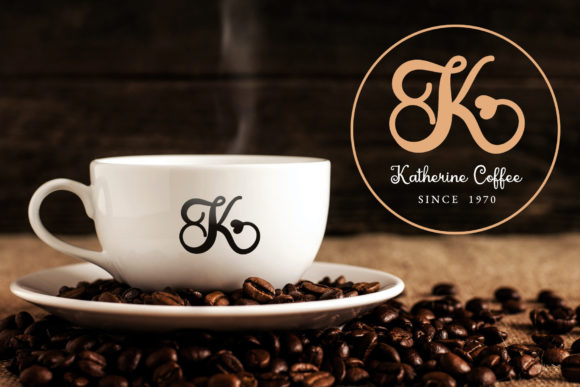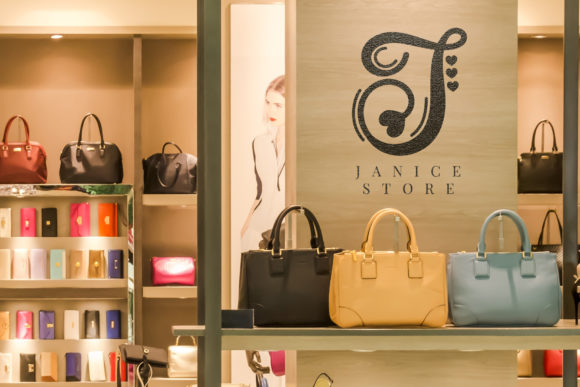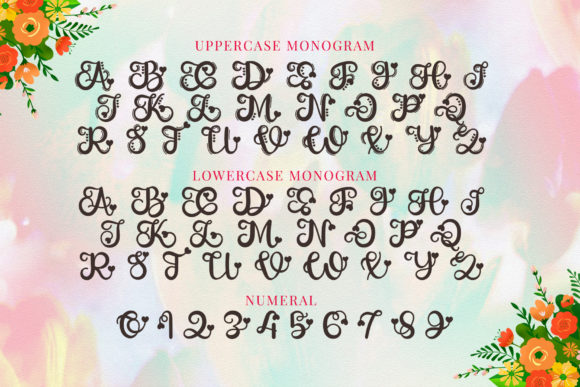
Lovey Monogram Font Font
Lovey Monogram is a magical handwritten font carefully created with a touch of elegance. It features an incredibly classic style, while still keeping a friendly feel. This font is the perfect font for making original and outstanding designs.